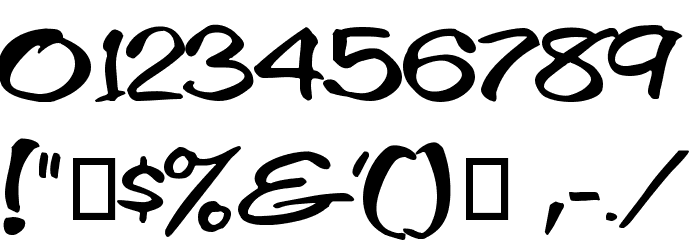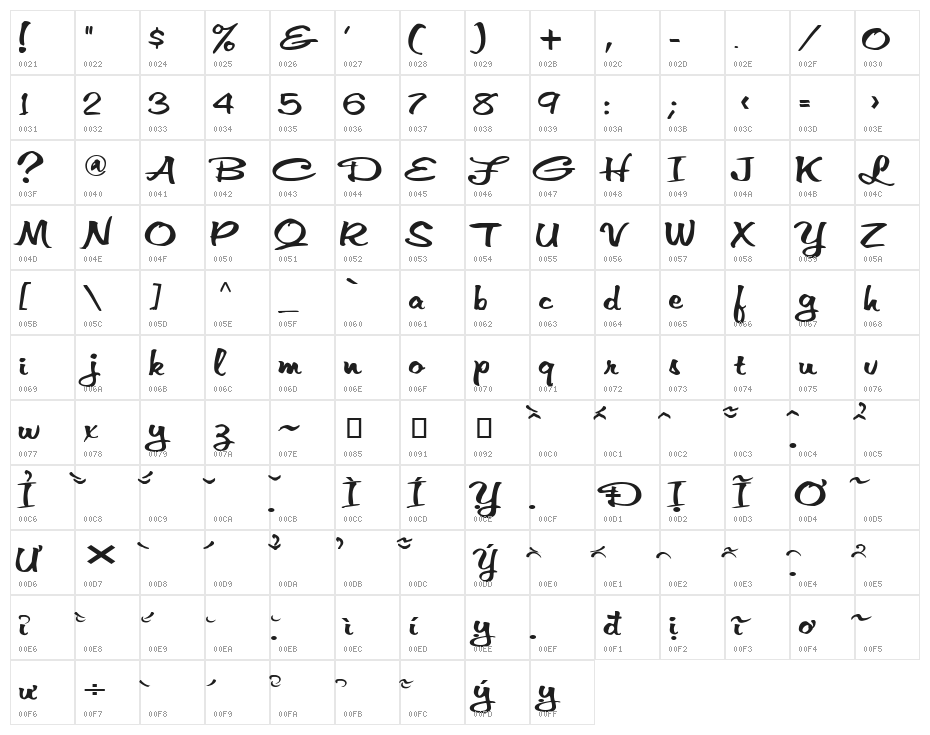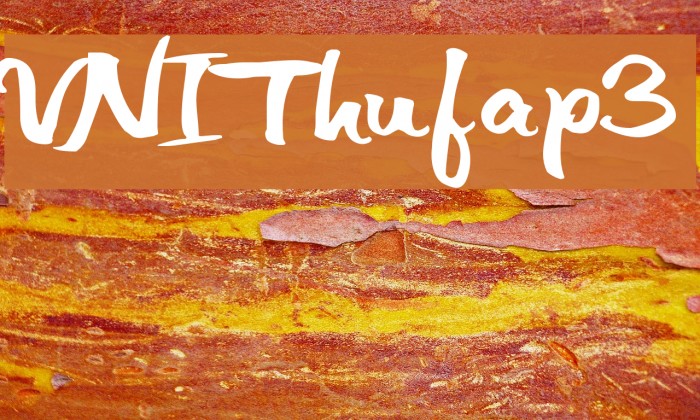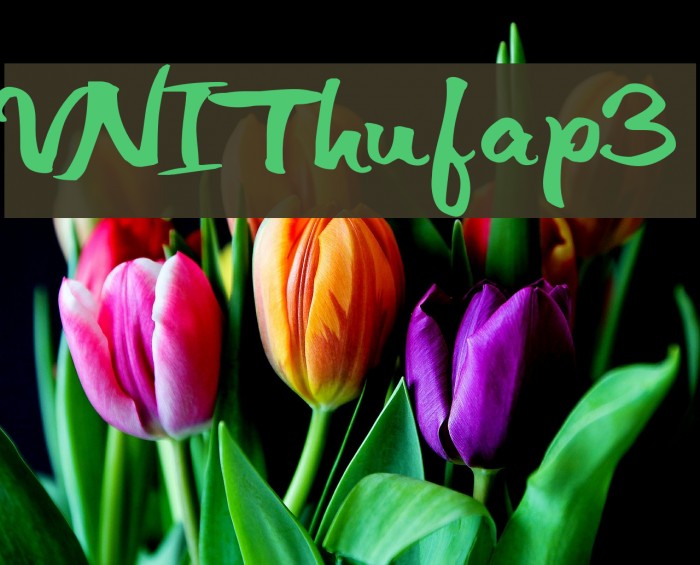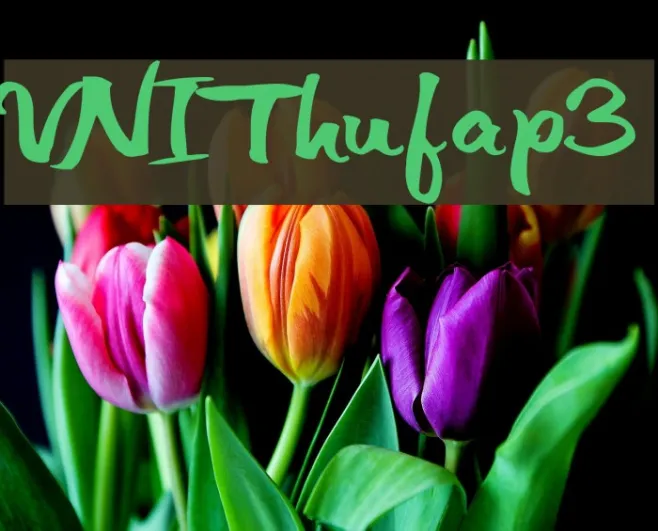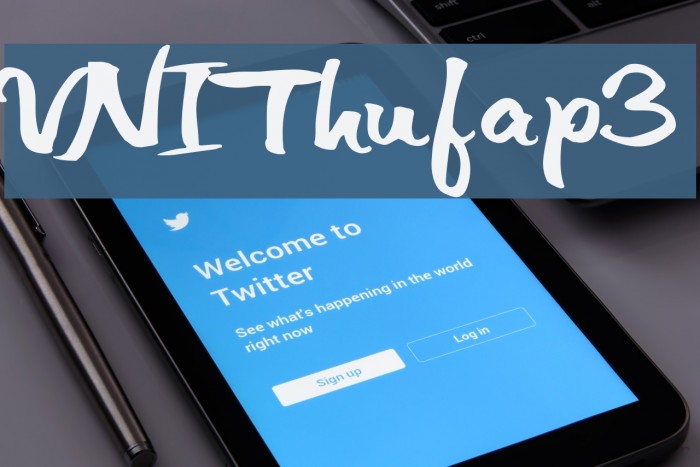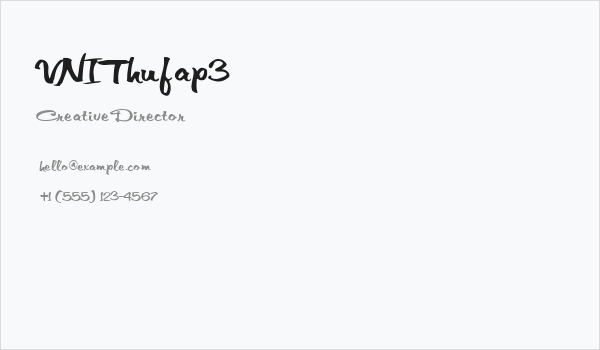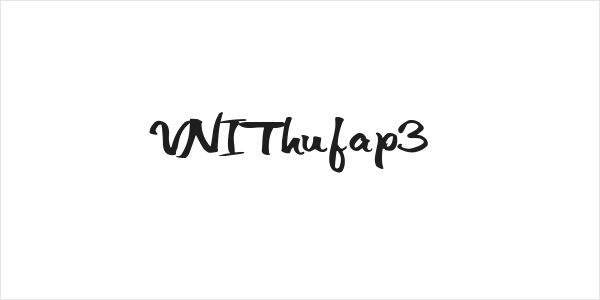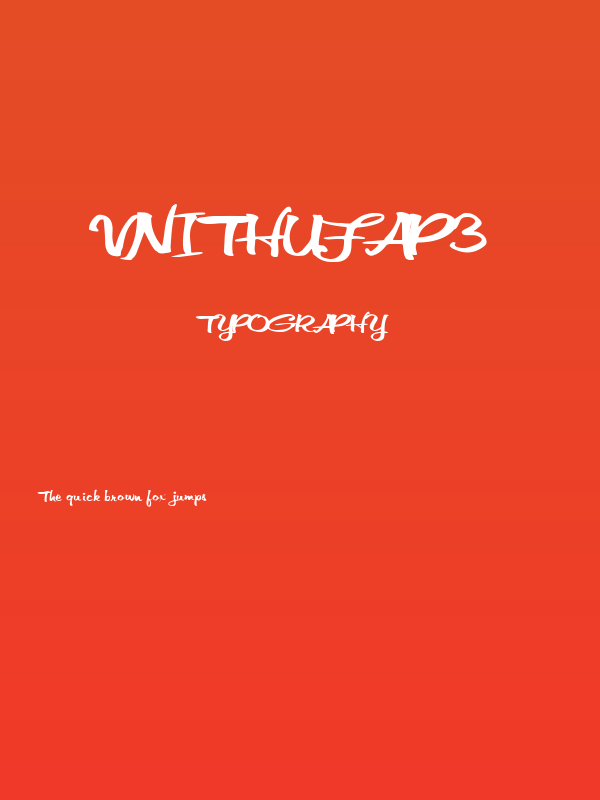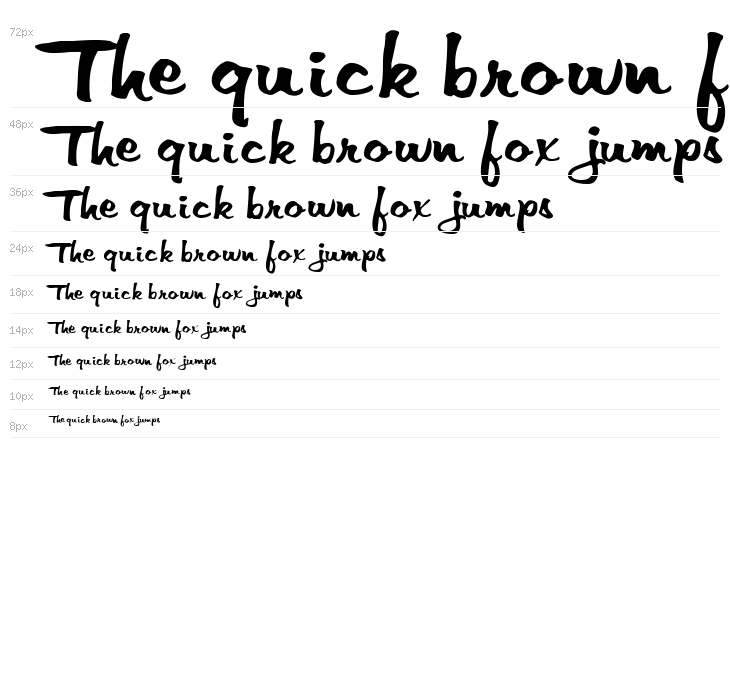
VNIThufap3 Font
VNIThufap3 Description
This font features a dynamic and expressive script style, characterized by its fluid and cursive letterforms. The uppercase letters are bold and sweeping, with a sense of motion and flair, while the lowercase letters maintain a consistent flow with rounded edges and smooth curves. The numerals and special characters are designed to match the overall aesthetic, providing a cohesive look. This font's artistic and lively appearance makes it suitable for creative and informal applications.
| Use Case | Logos, Invitations, Artistic designs |
| Proposed Projects | Ideal for invitations, greeting cards, branding projects, and artistic designs. |